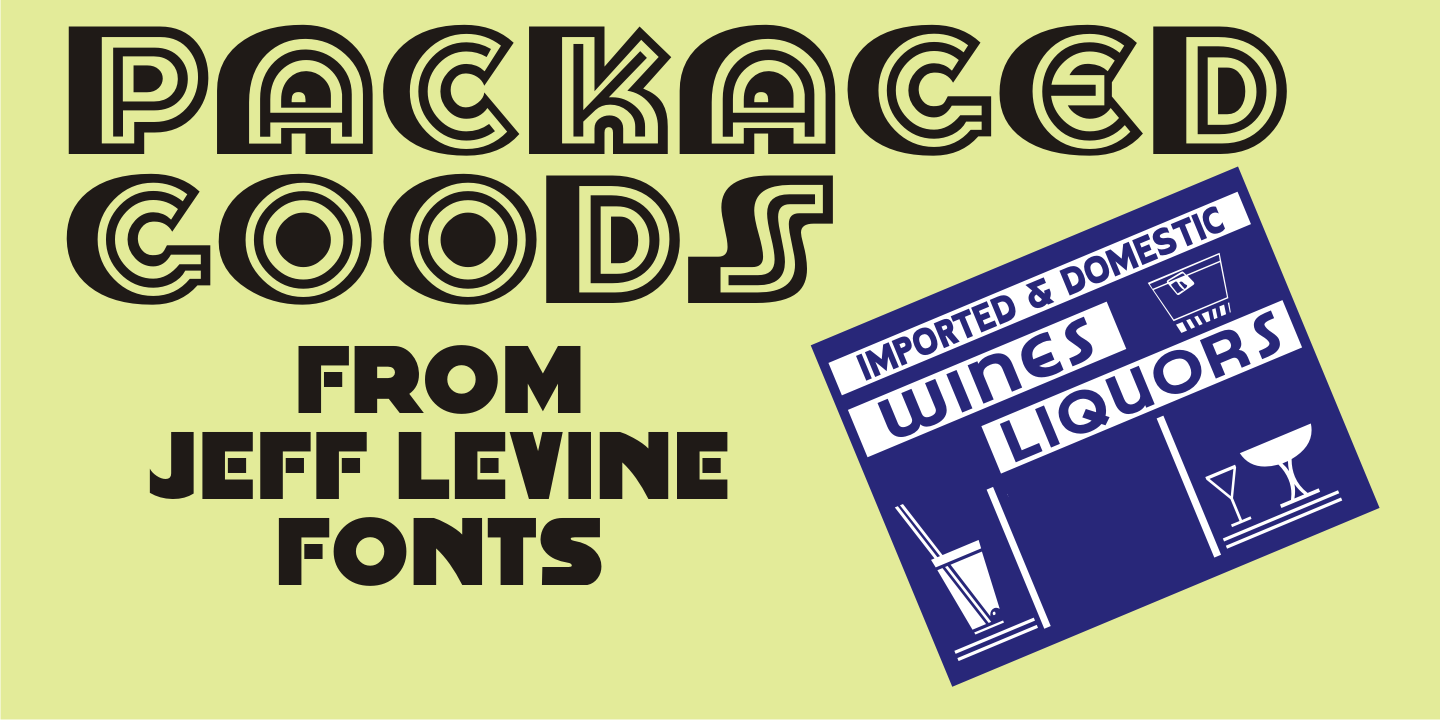
Packaged Goods JNL Font Free Download – A retro-inspired typeface that captures the nostalgic charm of 1950s grocery labels and vintage product packaging. Commercial use requires licensing, but you can download the free version to add classic Americana flair to your personal projects.
Where Can You Use Packaged Goods JNL Font?
This nostalgic font is perfect for:
• Vintage food packaging (artisanal jams, craft sodas, bakery goods)
• Retro diner branding (menus, signage, milkshake labels)
• Nostalgic advertising (throwback posters, retro product designs)
• Farmers market graphics (handmade product tags, rustic signage)
Why Is Packaged Goods JNL Font Exciting?
Packaged Goods JNL delivers authentic mid-century charm with:
Classic 1950s letterforms reminiscent of golden-age advertising
Subtle ink spread for authentic vintage printing effects
Alternate glyphs for custom retro combinations
Perfect balance between nostalgic and functional
Packaged Goods JNL Font Family
The complete vintage collection includes:
• Packaged Goods JNL Regular (base classic style)
• Packaged Goods JNL Bold (bolder supermarket-style)
• Packaged Goods JNL Shadow (dimensional retro effect)
• Packaged Goods JNL Outline (hollow variant for layered designs)